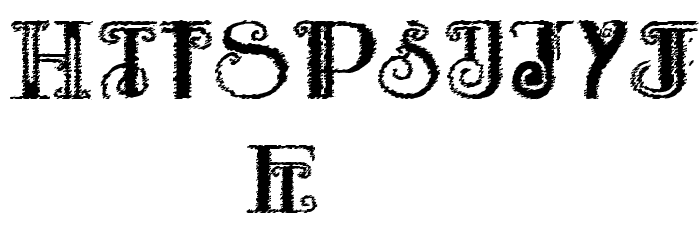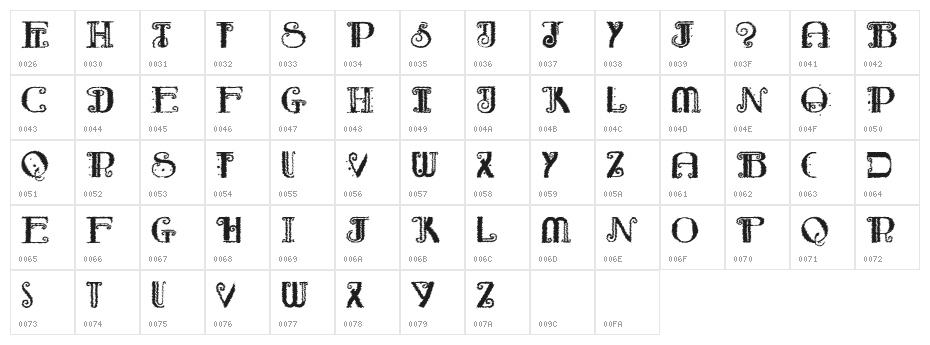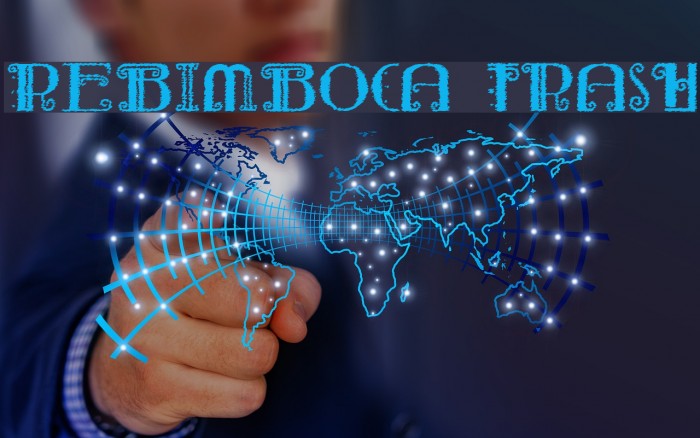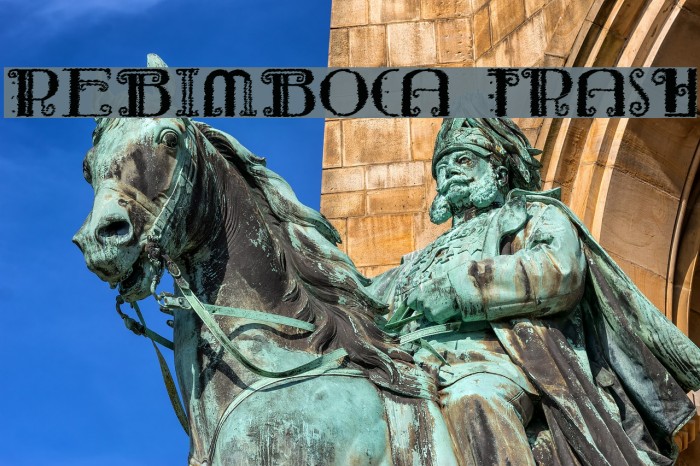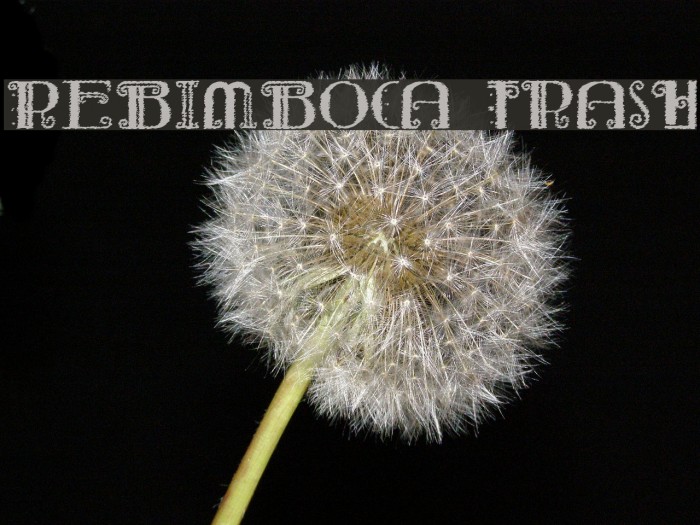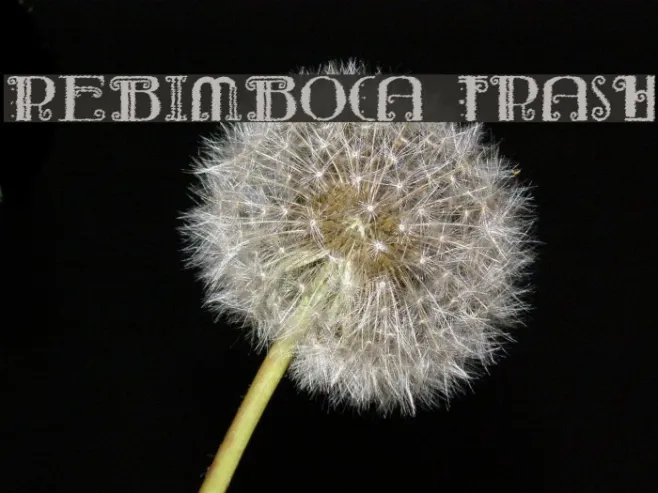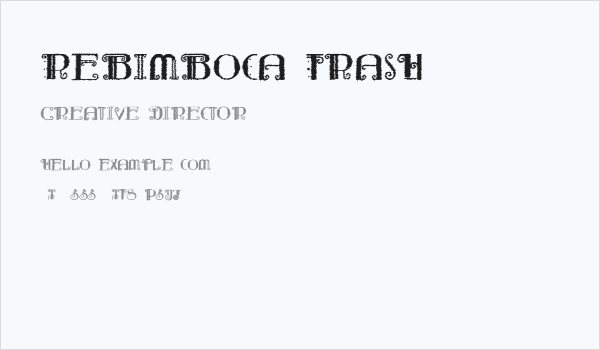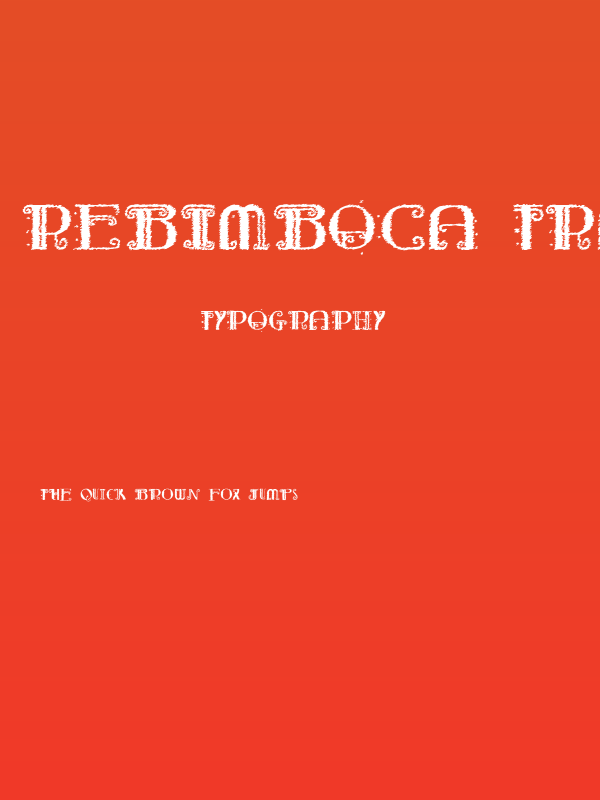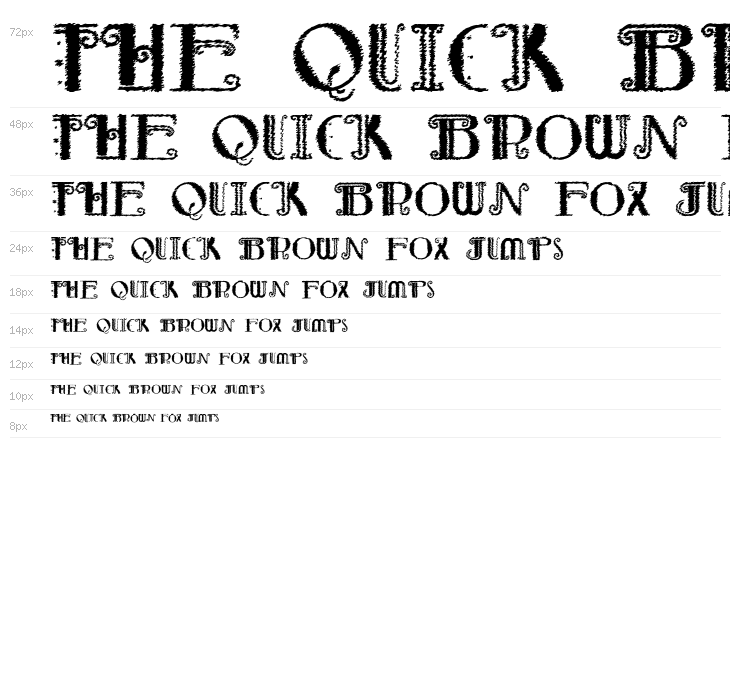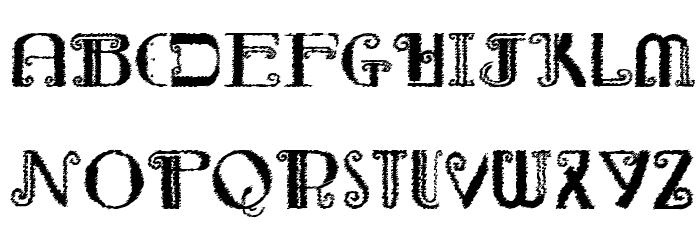
Rebimboca Trash Font
Rebimboca Trash Description
This font features a highly decorative and ornate style, characterized by intricate swirls and embellishments on each letter. The uppercase and lowercase letters share a consistent design theme, with bold, dramatic strokes and a vintage flair. The numbers and special characters are equally adorned, making this font ideal for eye-catching designs. Its unique style evokes a sense of nostalgia and artistic flair, perfect for projects that require a touch of elegance and creativity.
| Overall Style | Vintage, Decorative |
| Use Case | Headlines, Logos, Artistic projects |
| Proposed Projects | Ideal for vintage-themed posters, artistic invitations, branding for creative businesses, and decorative headlines. |